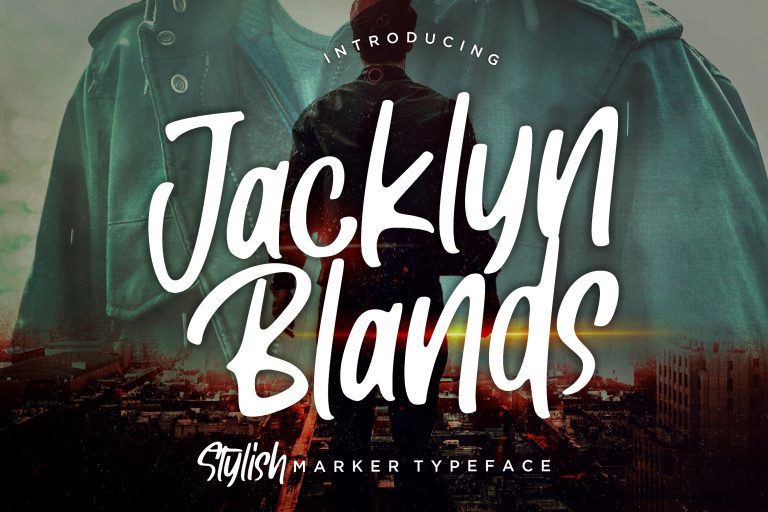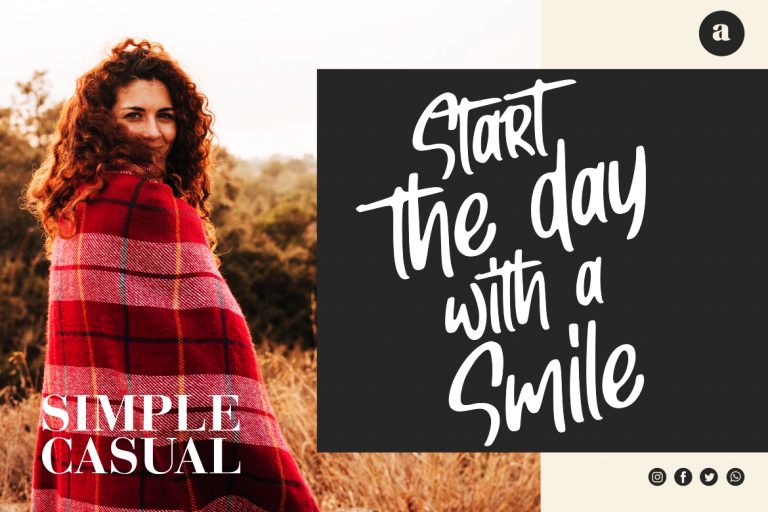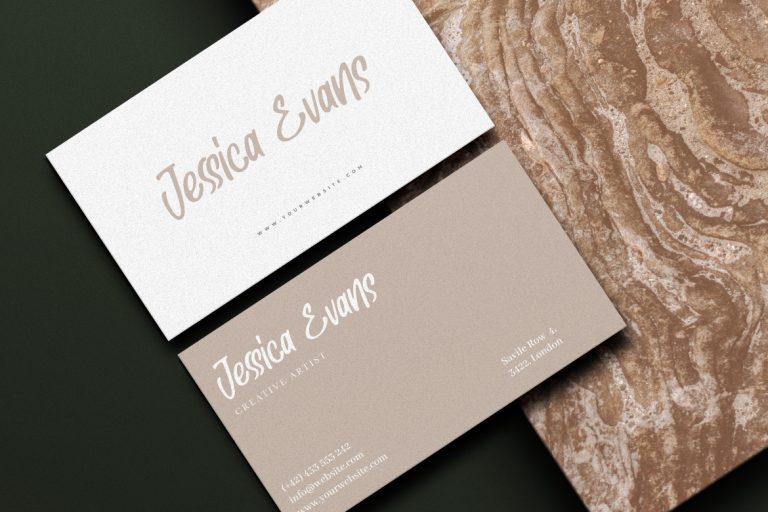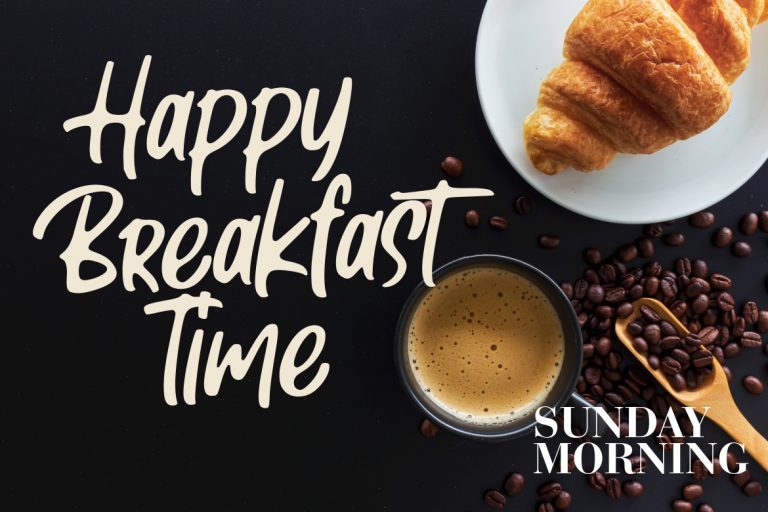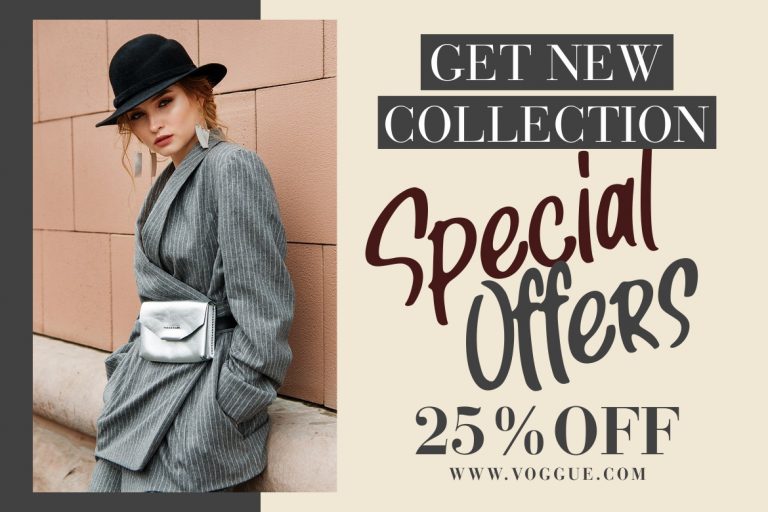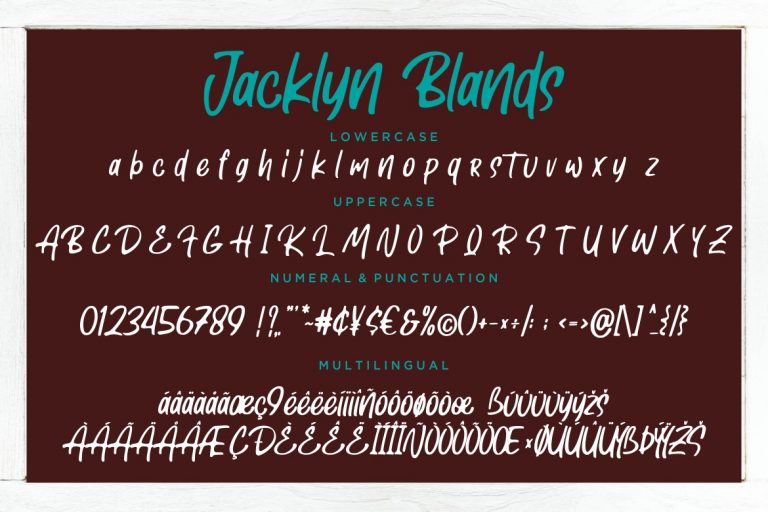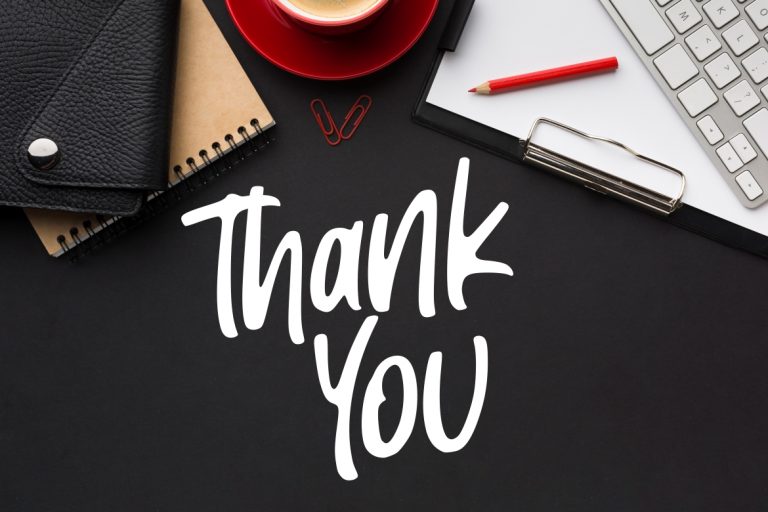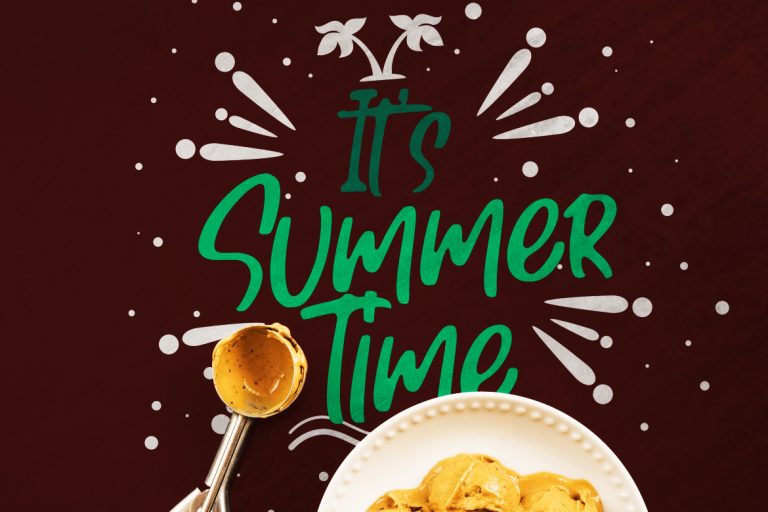
Jacklyn Blands is a smooth marker font with natural brush style which perfect for your latest project.
Jacklyn Blands is perfect for branding projects, logo, wedding designs, social media posts, advertisements, product packaging, product designs, label, photography, watermark, invitation, stationery and any projects that need handwriting taste.
- Fonts include multilingual support for; Afrikaans, Albanian, Croatian, Czech, Danish, Dutch, English, Estonian, Finnish, French, German, Hungarian, Italian, Norwegian, Polish, Portugese, Slovak, Slovenian, Spanisch, Swedish
Jacklyn Blands Stylish Marker